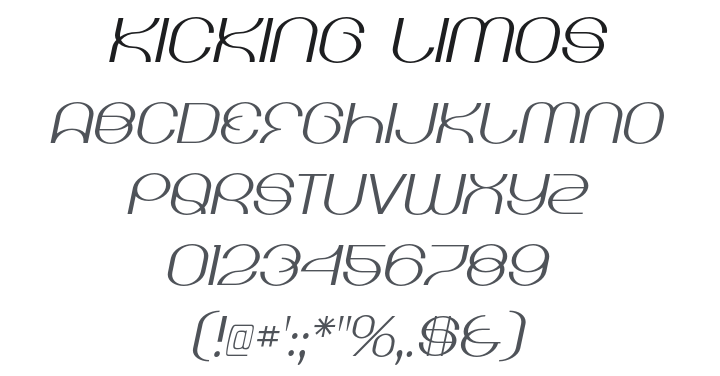
Kicking Limos Font
About Kicking Limos
Kicking Limos is a flamboyant, looped curvilinear display typeface where every letterform twists and spirals with extravagant, swirling curves — unusual, challenging to use, but deeply rewarding when it lands. It radiates a sense of wonder and deliberate weirdness that few fonts can match. Perfect for artistic headlines, fashion editorial, luxury event branding, experimental posters, and any design that wants to genuinely surprise and mesmerize the viewer.